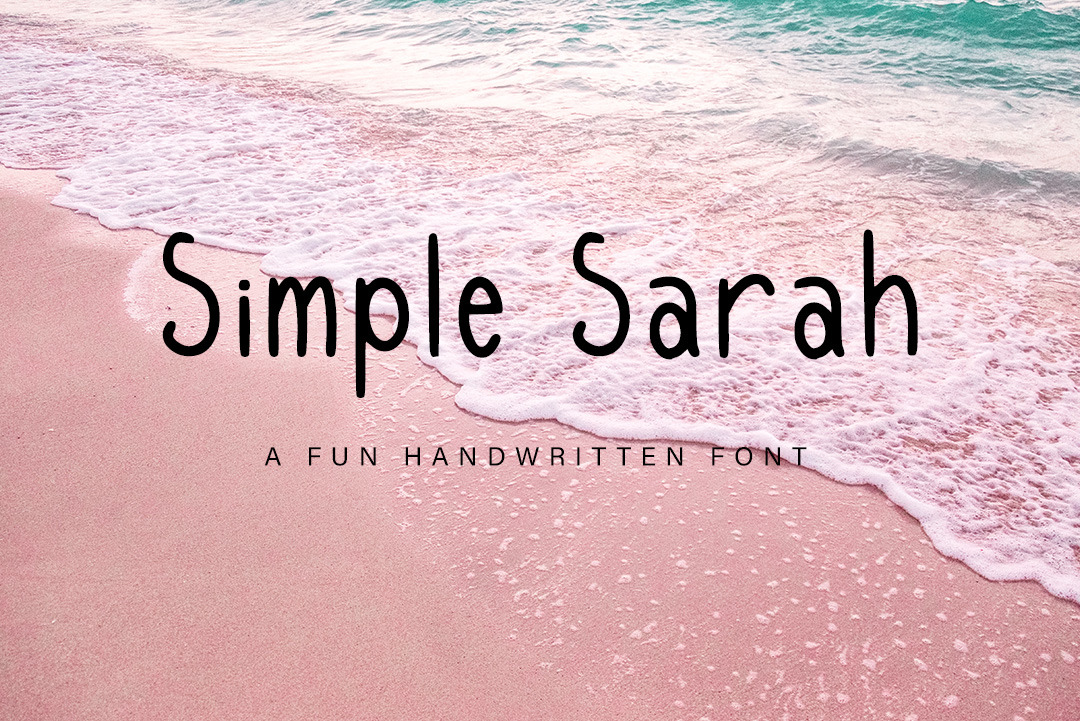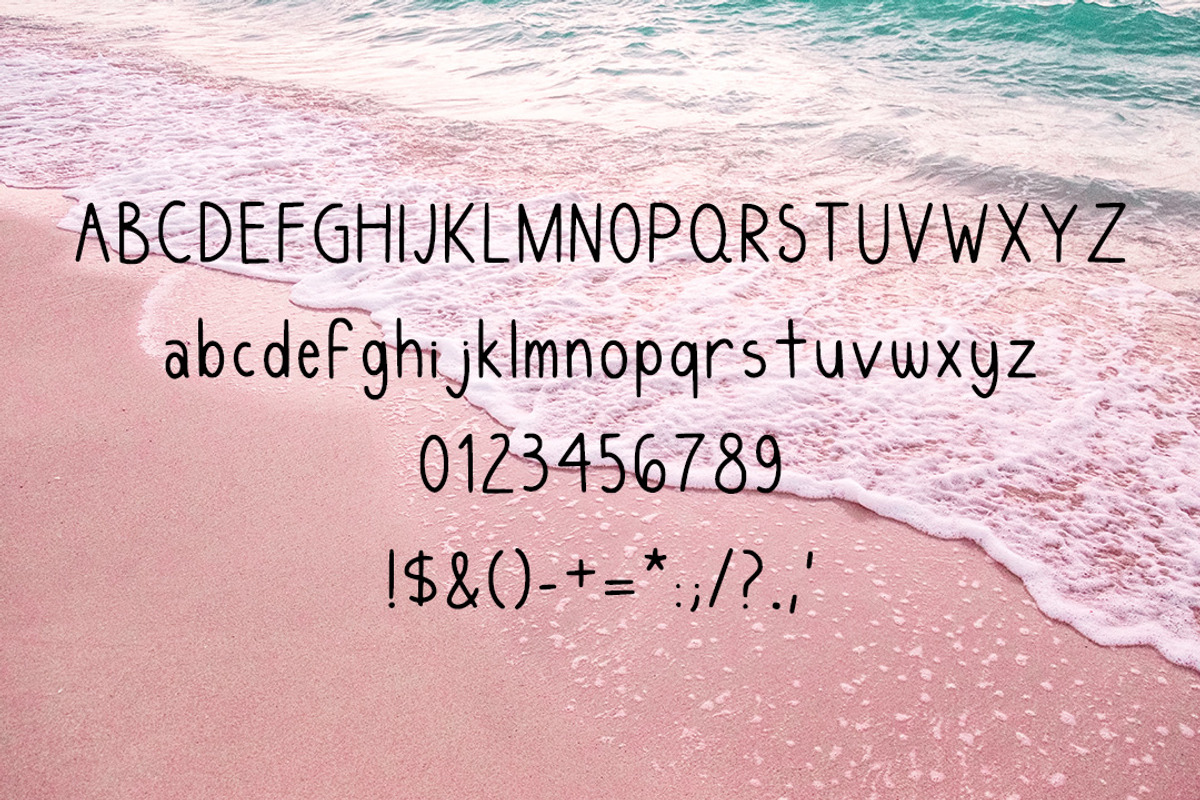
Simple Sarah Handwritten Font
Introducing Simple Sarah, a handwritten font designed to give your projects a personal touch. This font has a simple and natural look, as if it was written with a pen or marker, making it perfect for creating a friendly and approachable vibe. Use it for anything from invitations and greeting cards to logos and social media graphics. With its easy-to-read style and authentic handwritten feel, this font is sure to add a touch of warmth and character to all your designs.